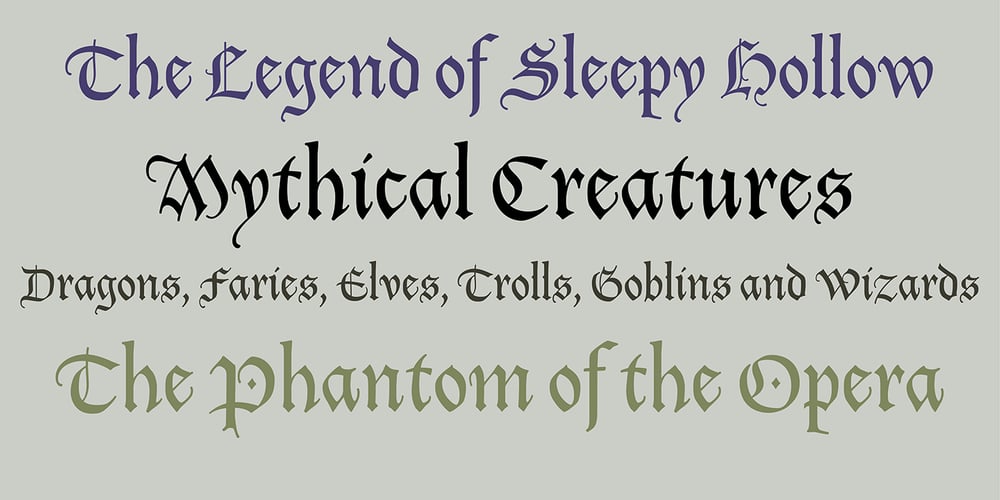
Tory Font Family was designed by Steve Matteson and published by Matteson Typographics. Tory contains 1 styles and family package options. Frederic Goudy designed Tory in the spirit of the ‘lettres batarde’ found Geoffry Tory’s Champ Fleury. He was looking to create a romantic type for which to typeset the book Auccasin et Nicolette. It was one of Goudy’s favorite typefaces of his own creation and it is digitized by Steve Matteson to preserve that legacy.